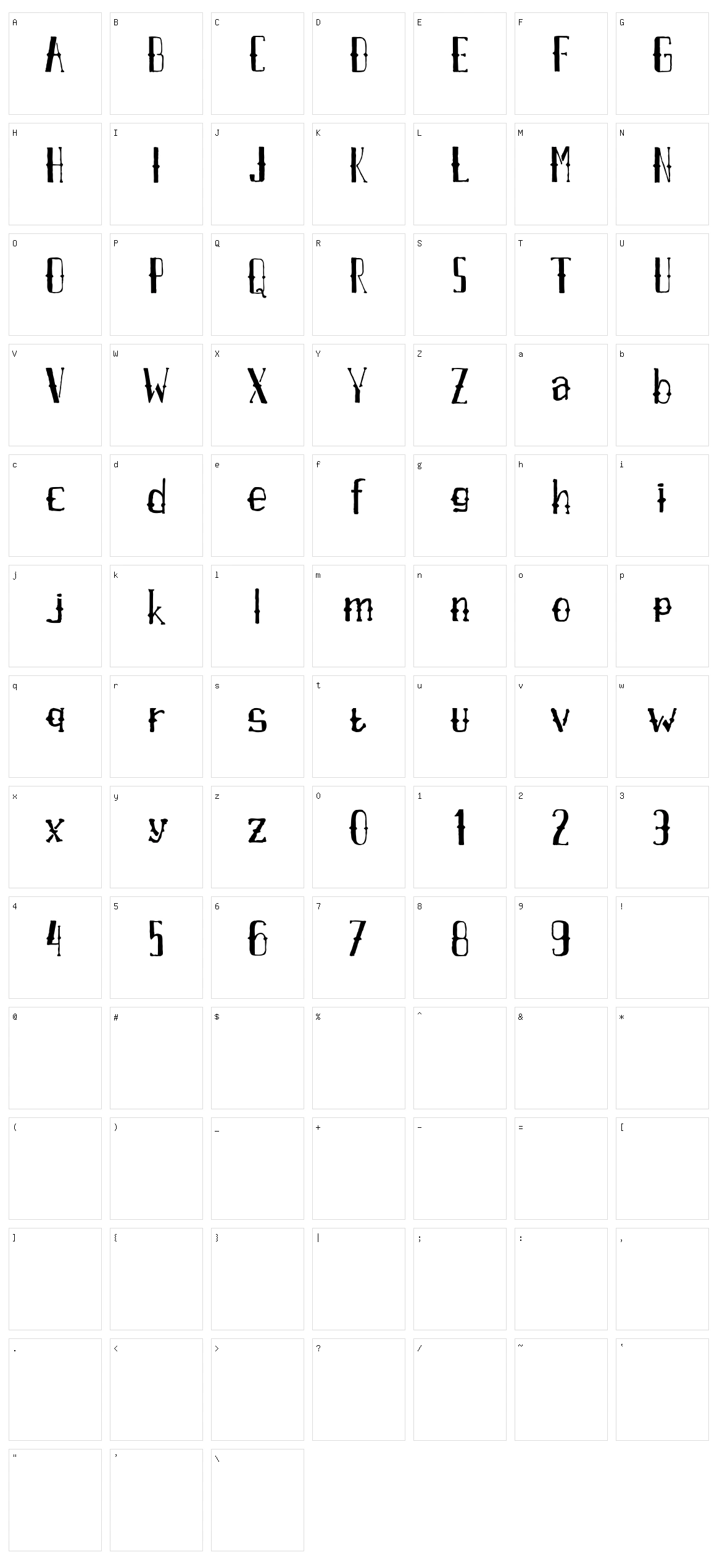
Airpena is Inspired from rusted and distressed handdrawn lettering used on retro motorcycle.
It comes with full alphabet, alternates for Uppercase (Front and back) & Lowercase (end) its give you an exciting experience to use it in titling and or writing.